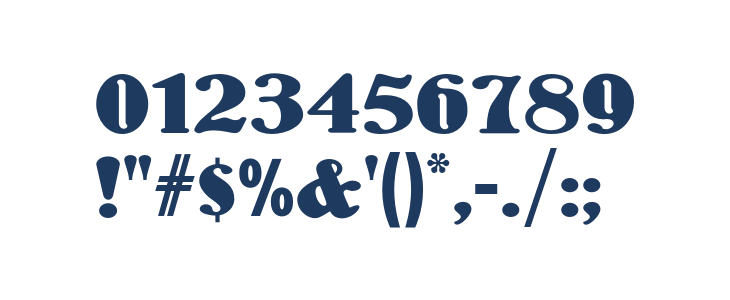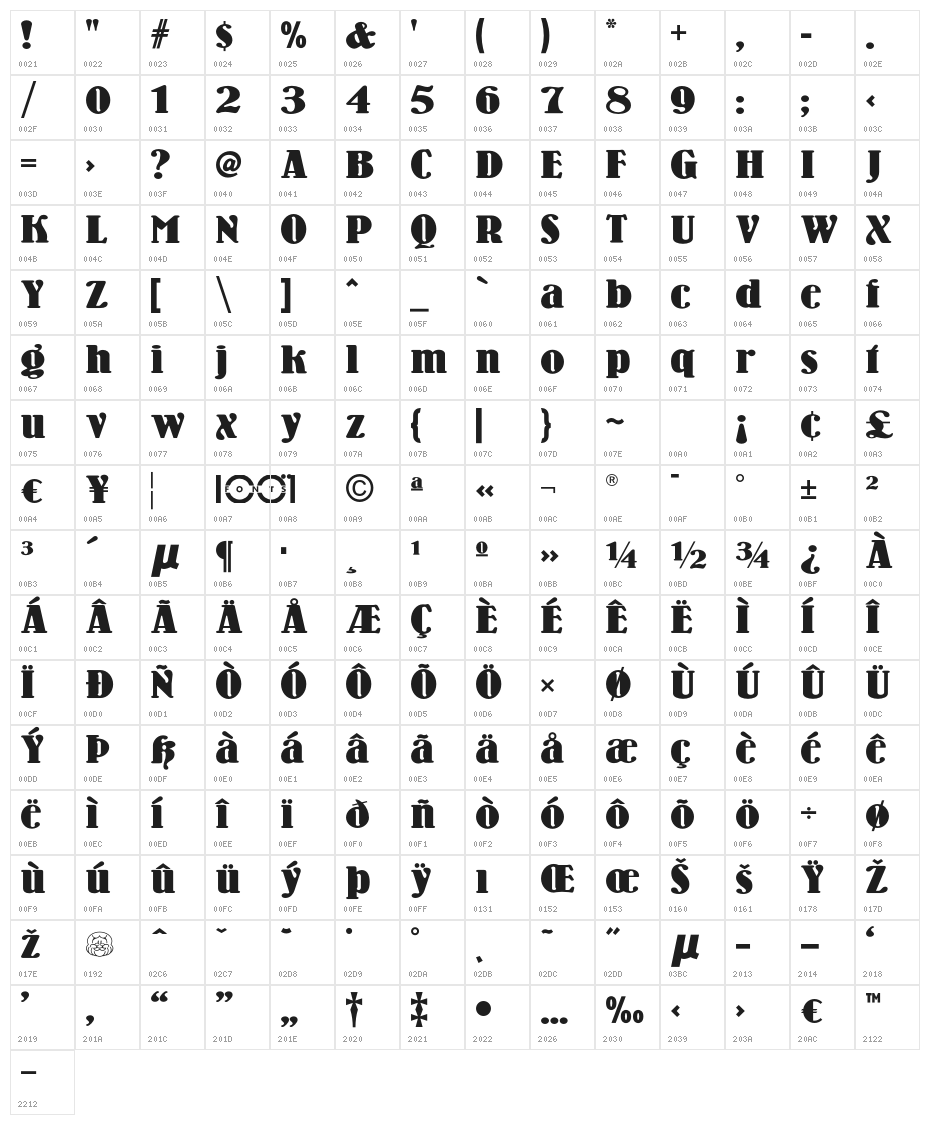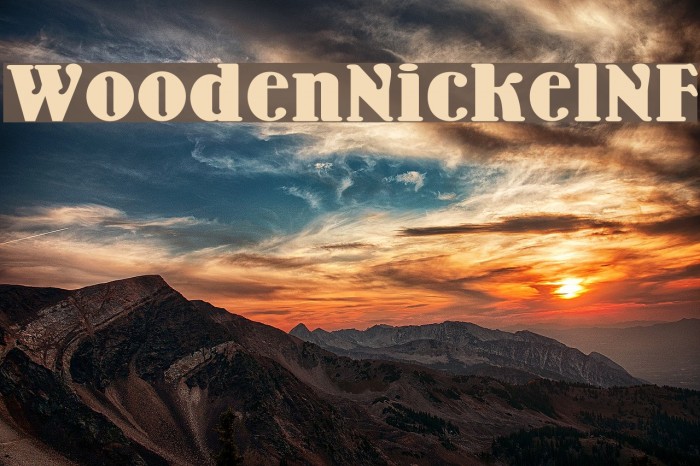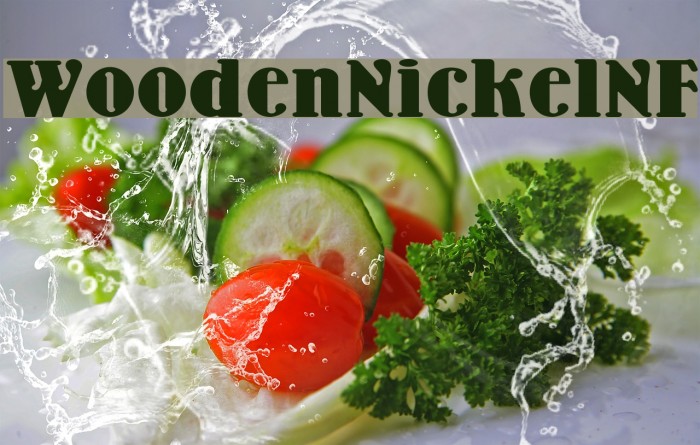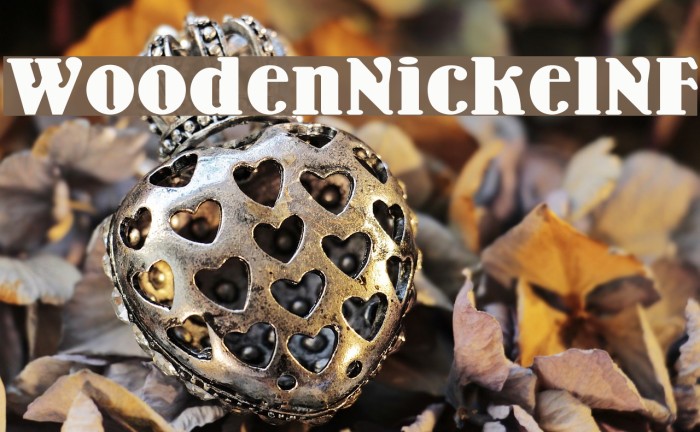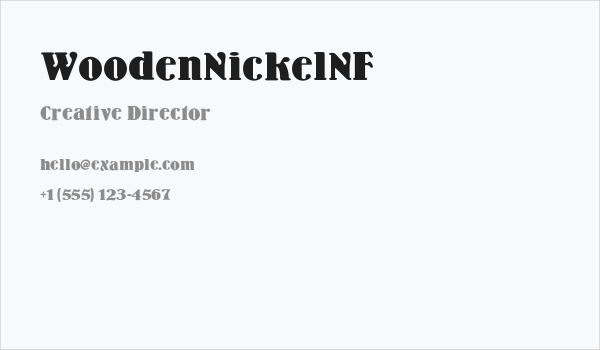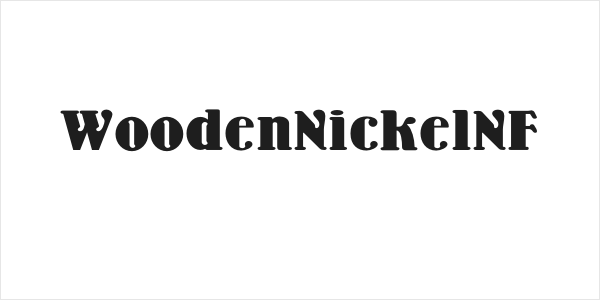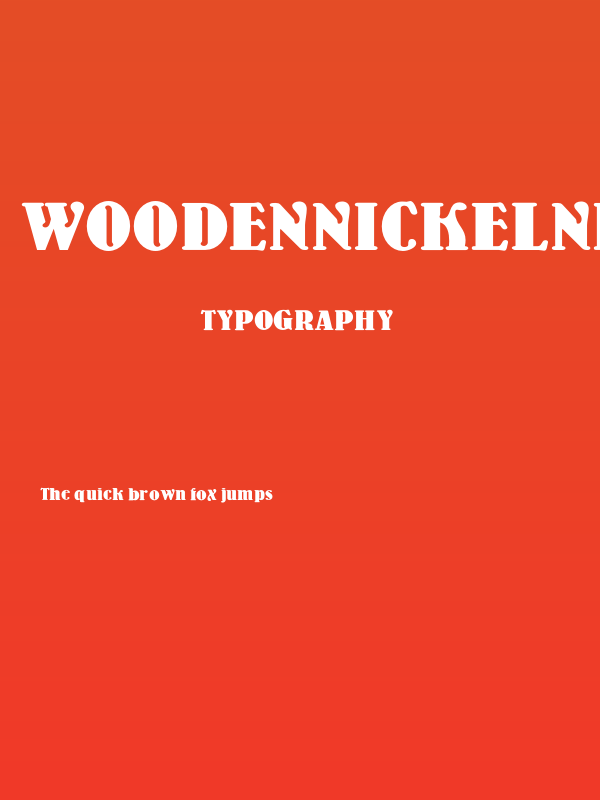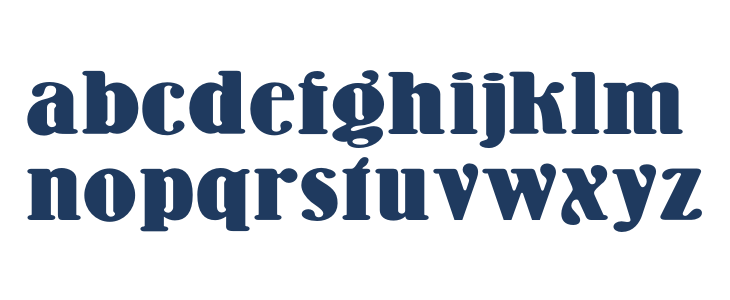
WoodenNickelNF Font
WoodenNickelNF Description
This font features a bold and robust design with a vintage flair, characterized by its thick, slab-like serifs and strong presence. The uppercase letters are particularly striking, with a uniform height and width that convey a sense of stability and strength. The lowercase letters maintain this boldness while offering a slightly more rounded and approachable appearance. Numbers and special characters are equally bold, ensuring consistency across all text elements. The font's overall style is reminiscent of traditional woodcut or engraved typefaces, making it ideal for projects that require a touch of nostalgia or historical reference.